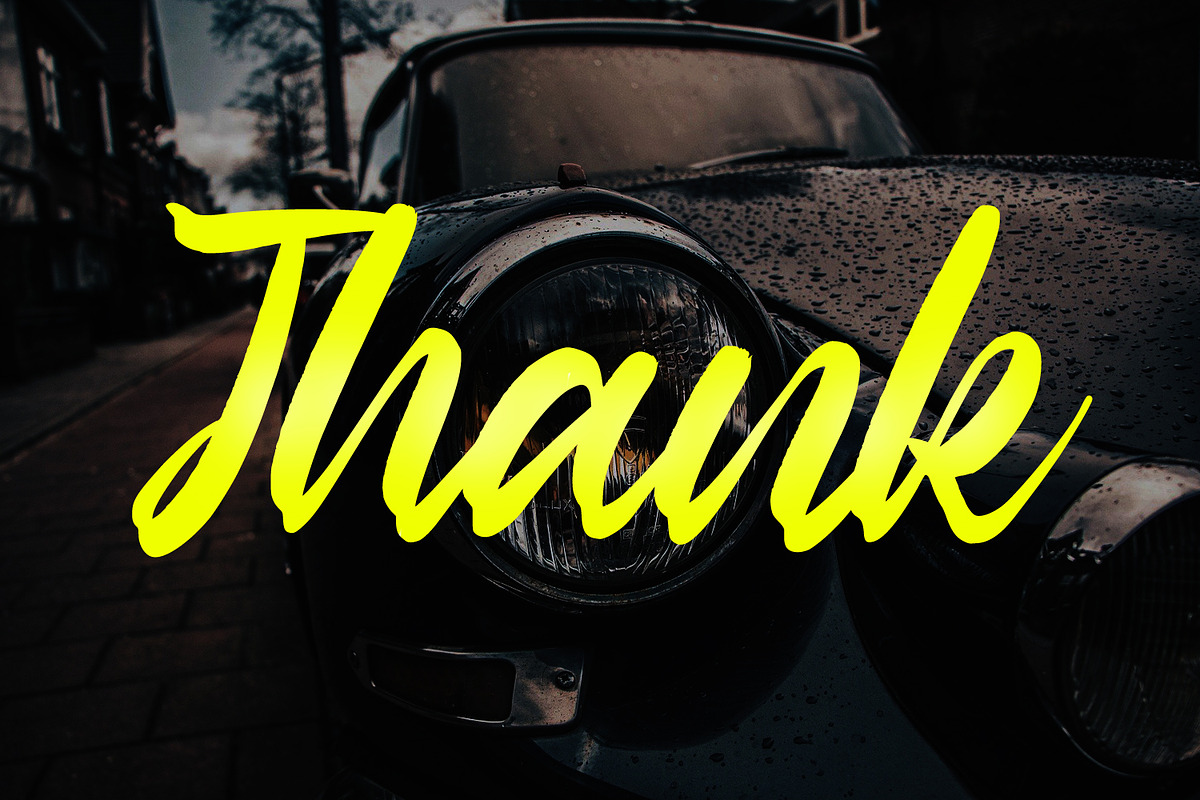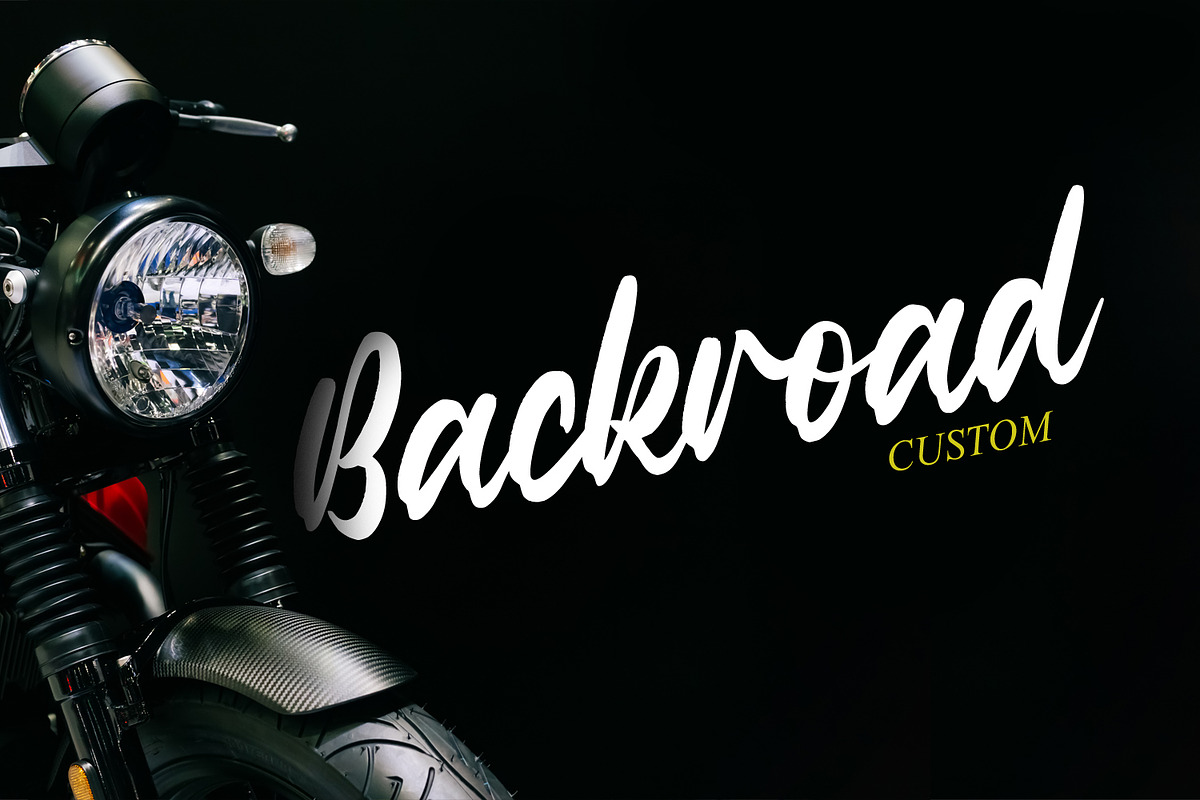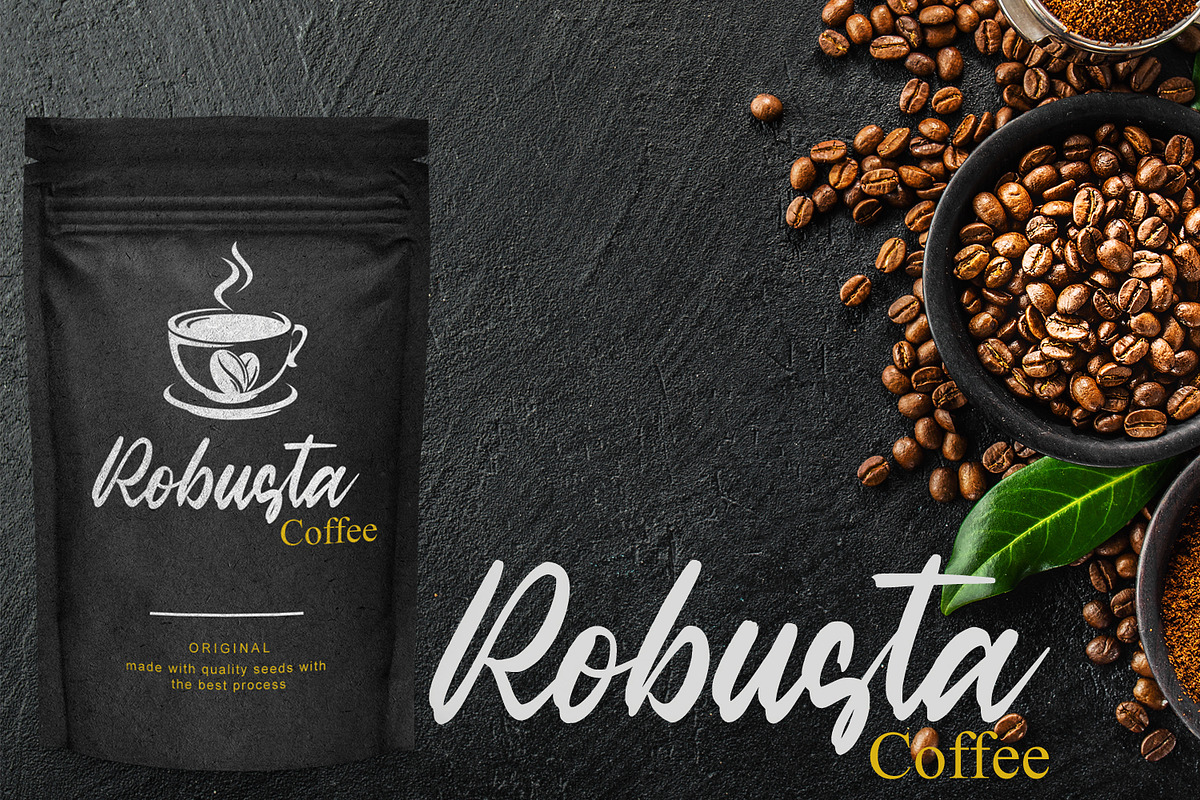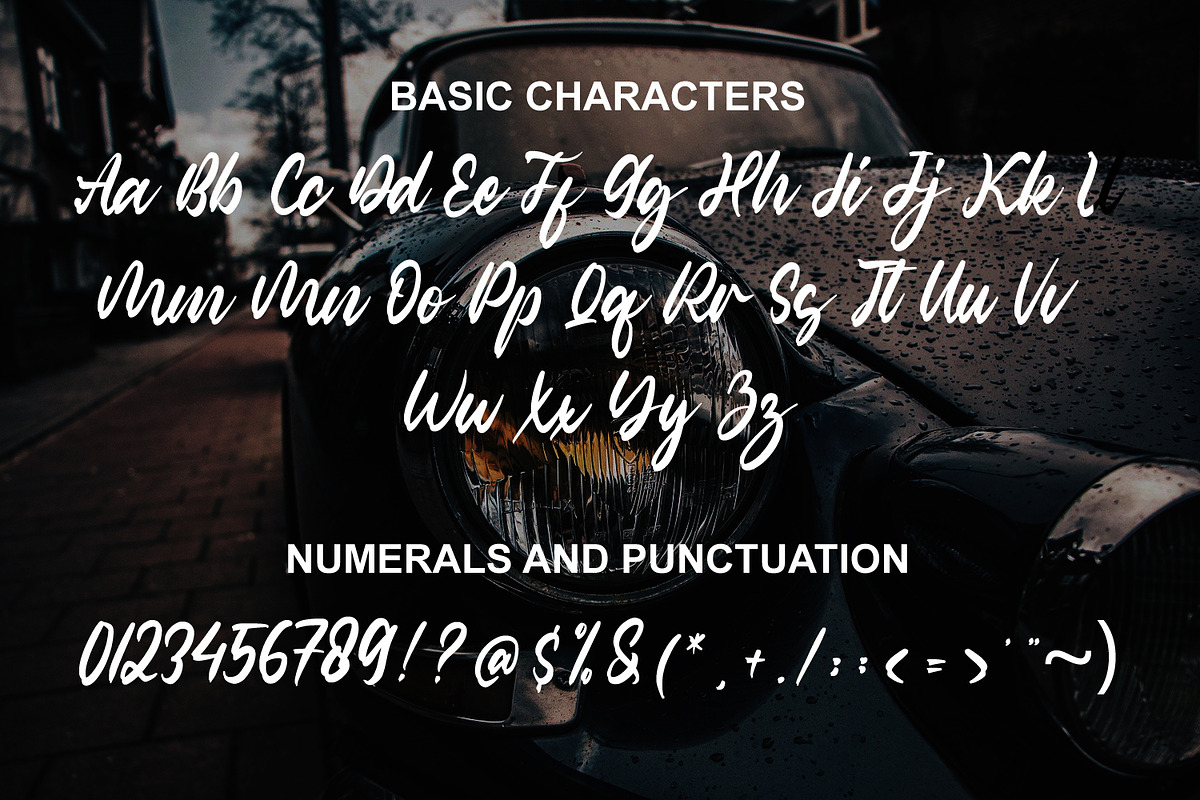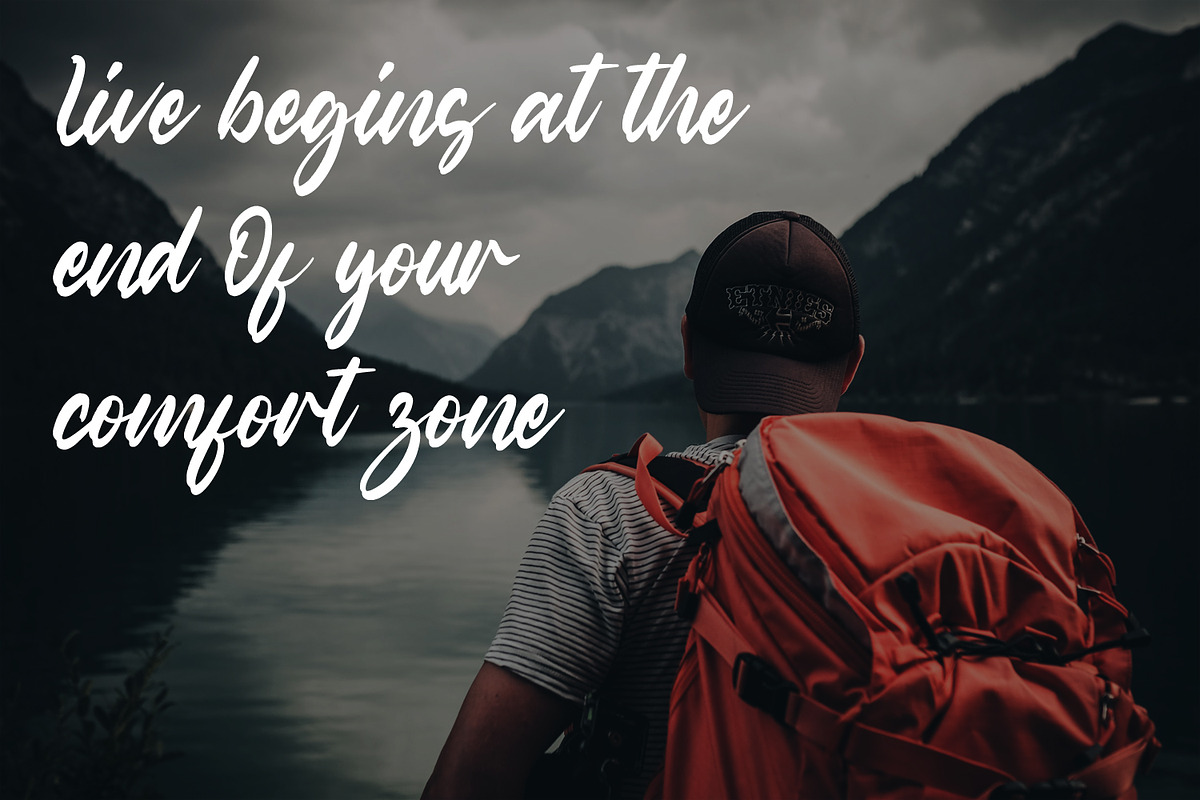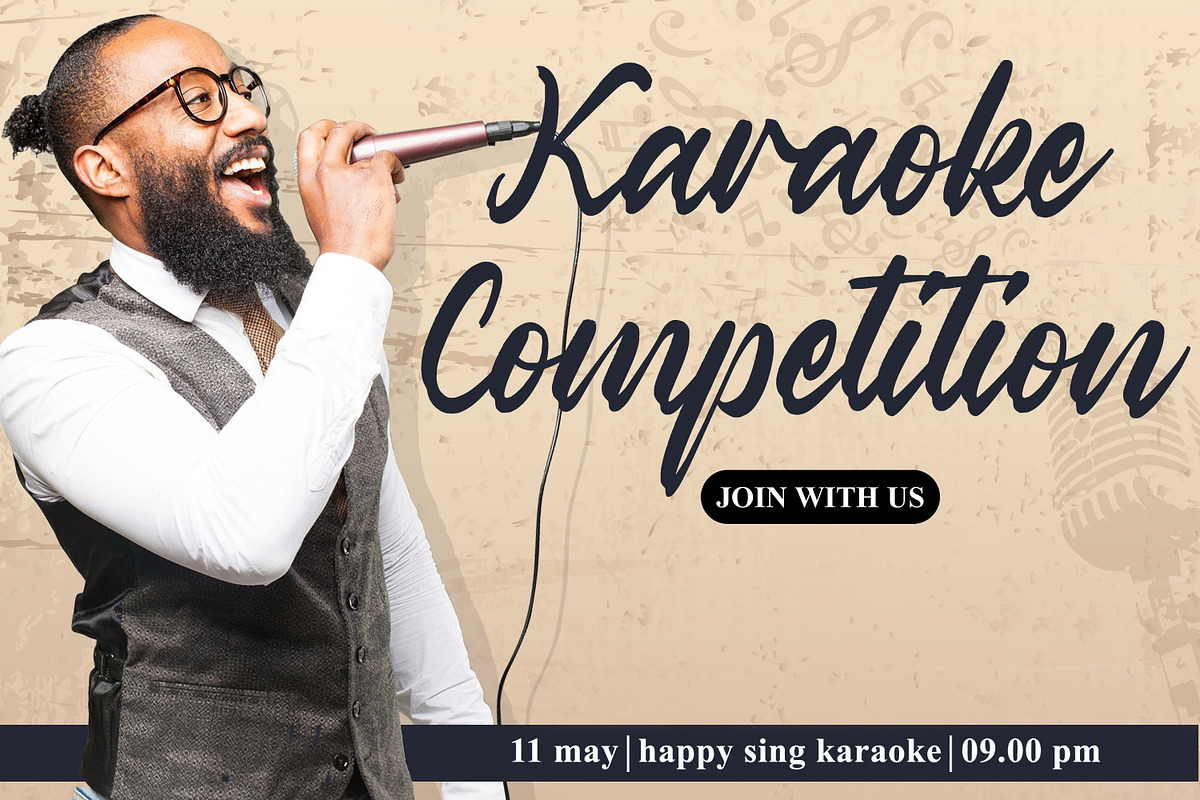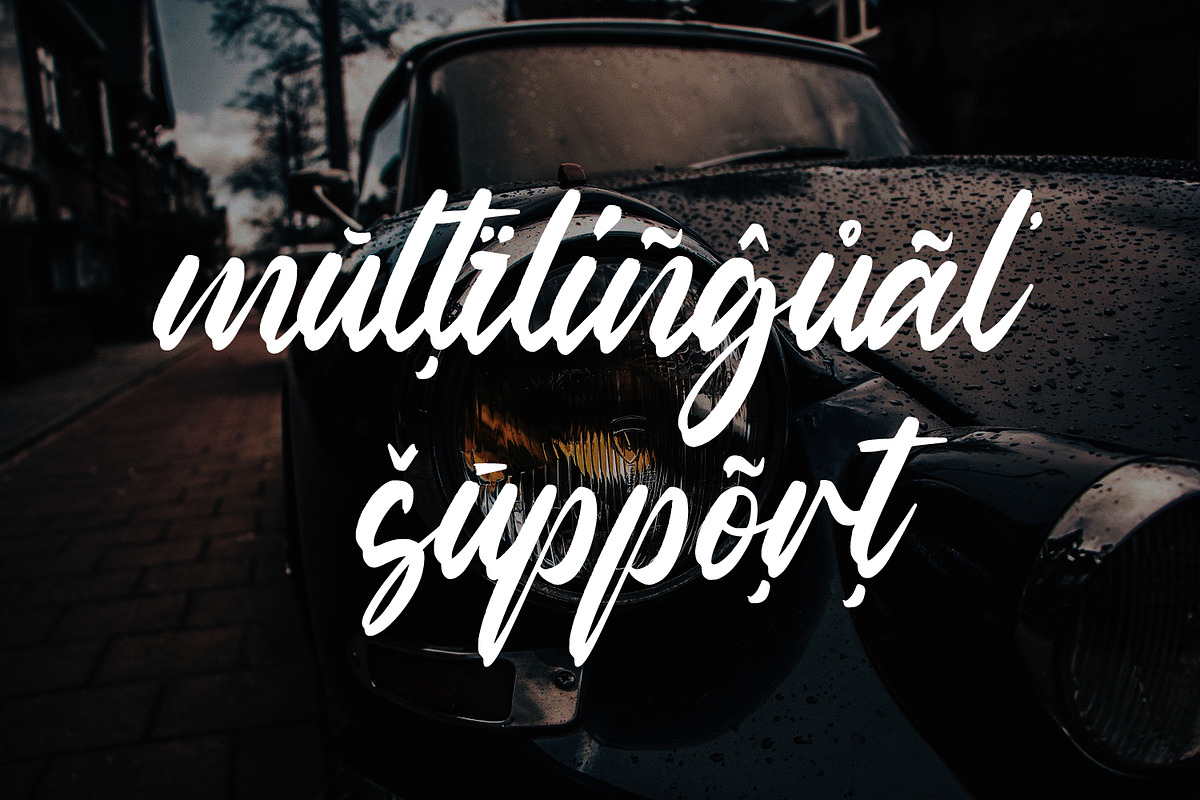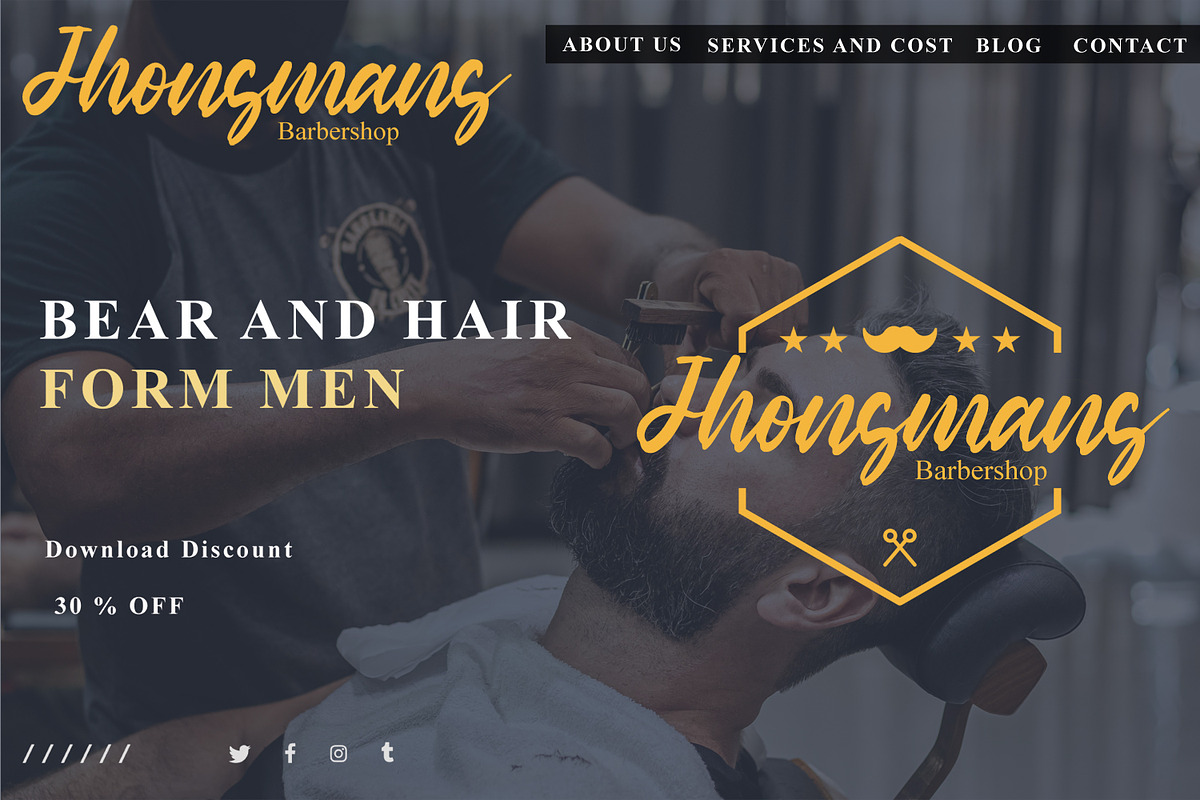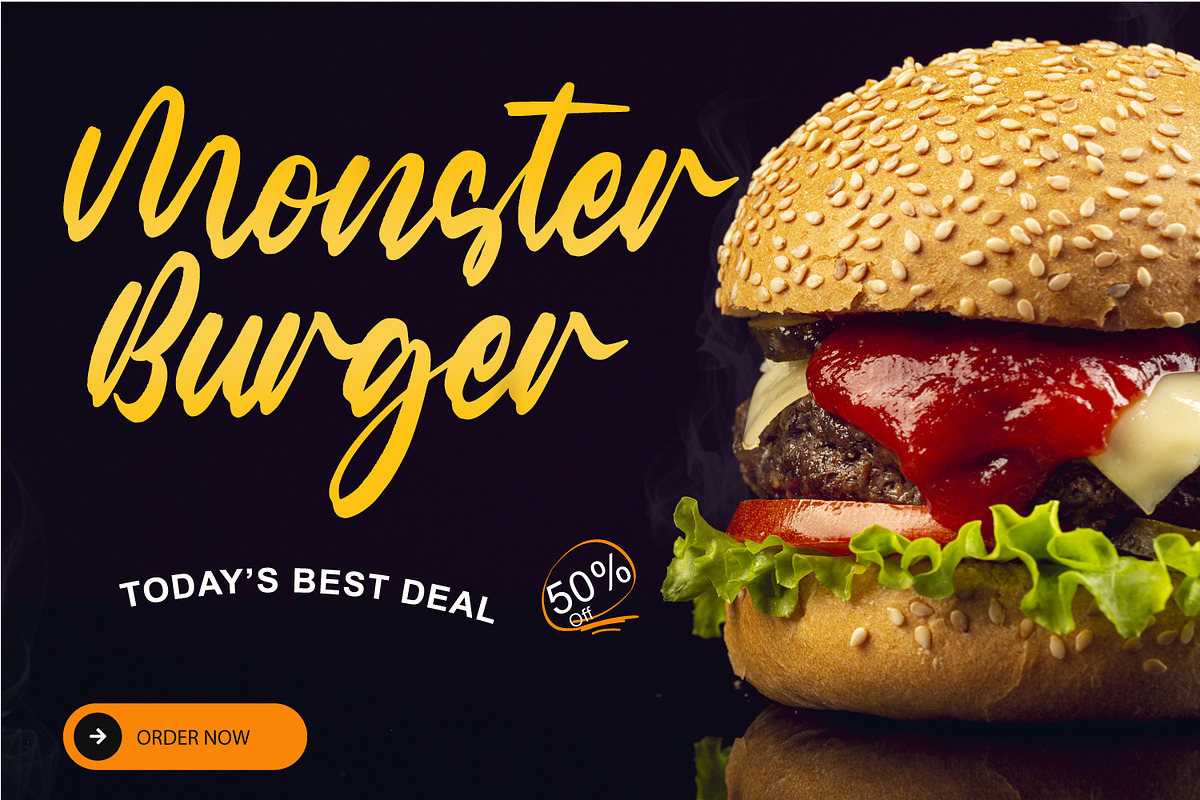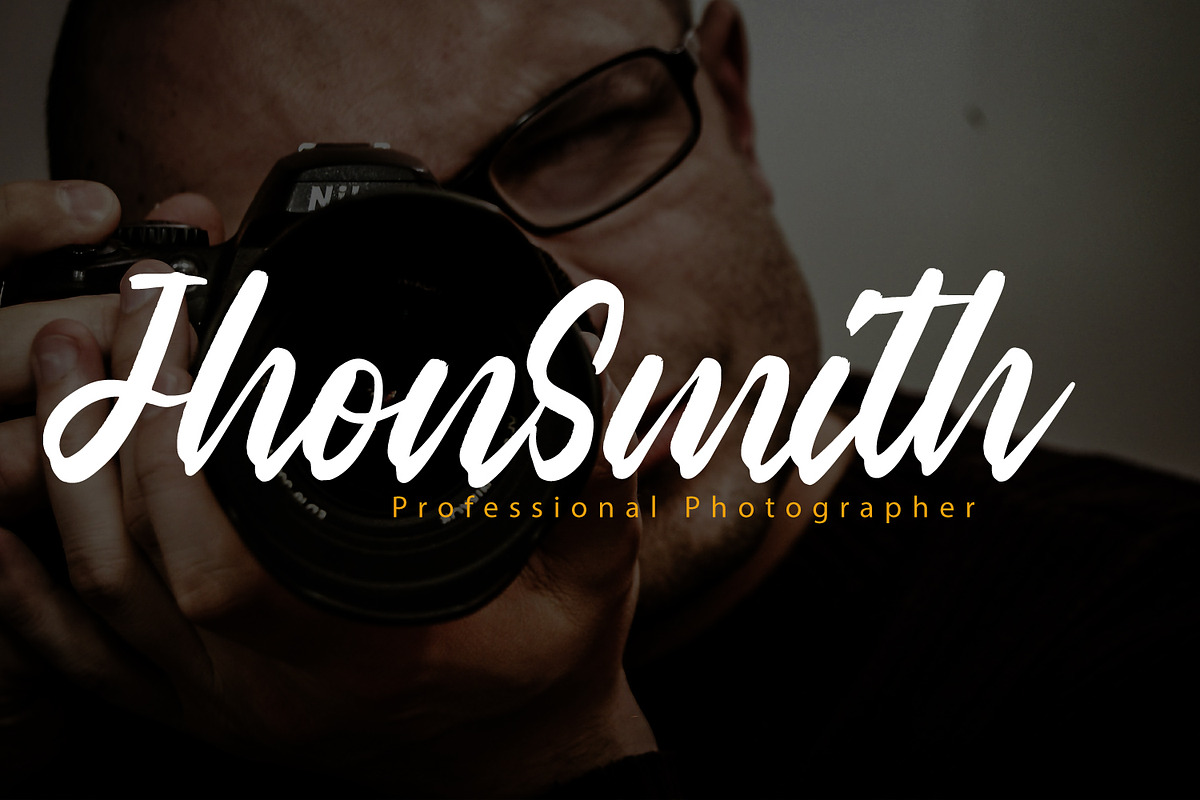
Classic Romantic Font
Classic Romantic is a bold handwritten font. This fantastic font is best suited for headlines of all sizes, as well as for blocks of text that have both maximum and minimum variations. Whether it’s for web, print, moving images or anything else, Classic Romantic will look spectacular.